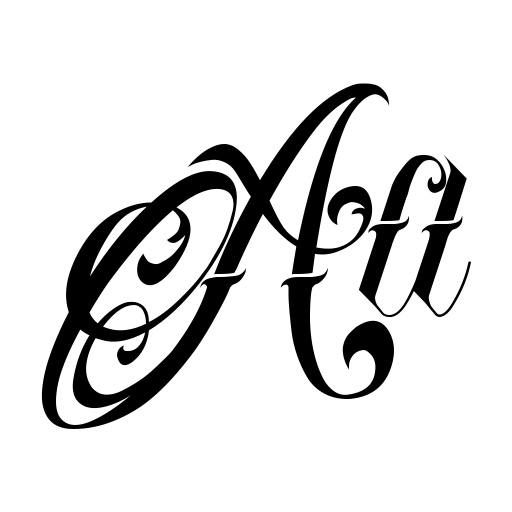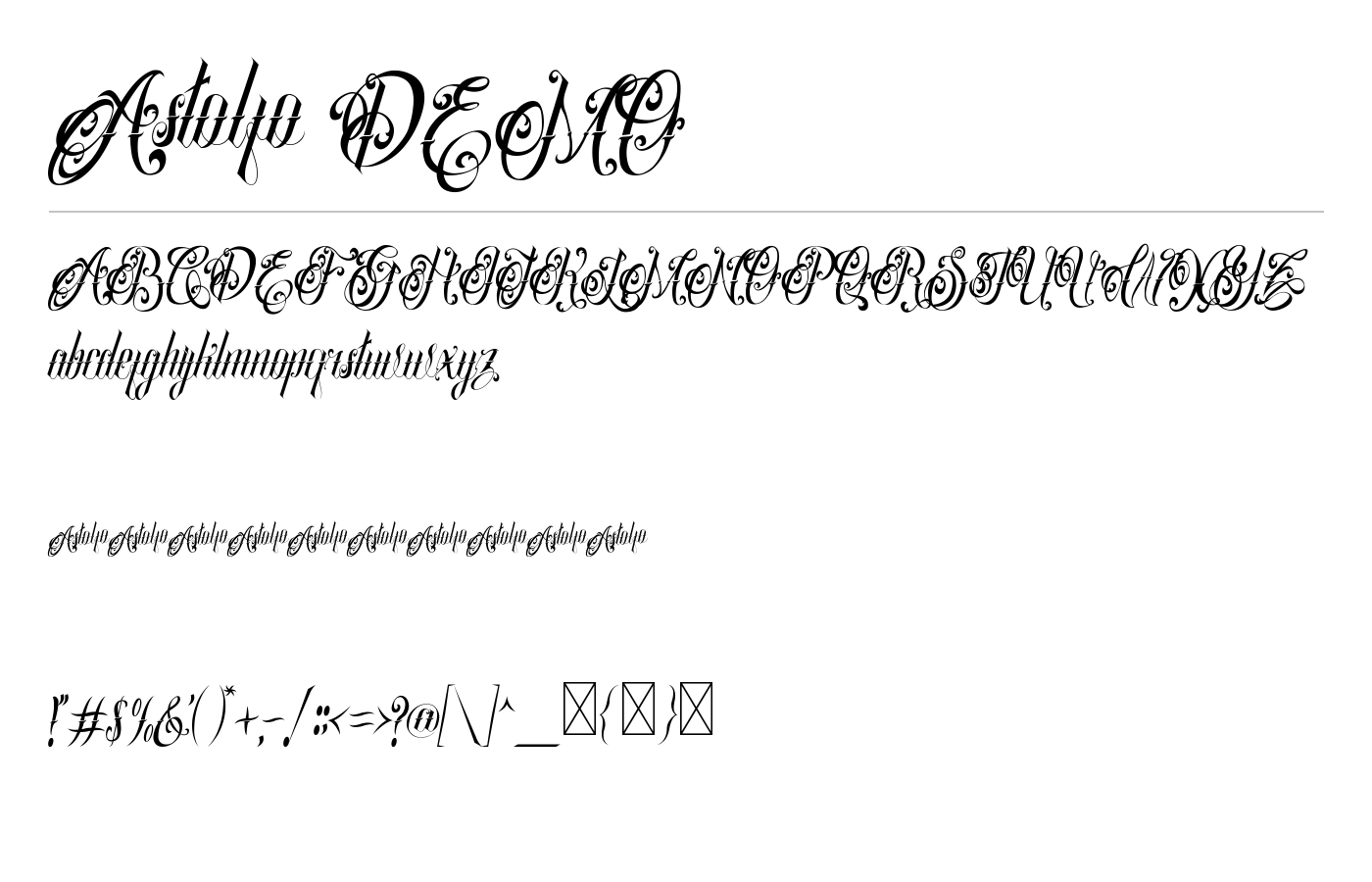
Astolfo DEMO is an ornate, highly decorative script font with elegant flourishes and delicate, swooping strokes that give it a luxurious, vintage feel. Its thin, tightly spaced letterforms create a refined and intricate appearance best suited for luxury branding, invitations, and expressive headlines where a dramatic, sophisticated touch is desired. This font works beautifully in creative projects that seek to evoke elegance and artistic flair but is less suited for body text due to its elaborate detailing.
Astolfo DEMO Font
About Astolfo DEMO Font
| Font family | Astolfo DEMO Font |
| Languages supported | Latin, Symbols, Cyrillic |
| Designer | Satrio Alfandi Aldiansyah |